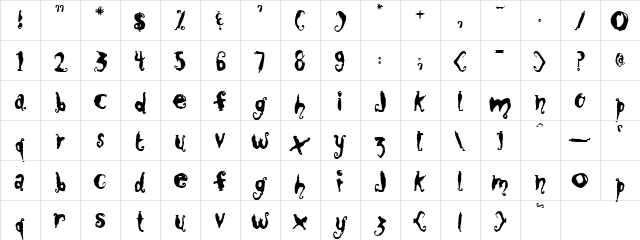
Drench Bubbles Regular
Design Context for Drench Bubbles Typeface
Drench Bubbles trades formality for fun, with bouncy, characterful letterforms that bring warmth and energy to any project.
Font Pairing: Pairs well with a rounded or humanist sans for body copy, maintaining the friendly tone without relying on Drench Bubbles to carry extended reading.
Pro Tip: Use Drench Bubbles at larger display sizes where its expressive character can land. Pair with a clean, simple sans for body copy to maintain readability.